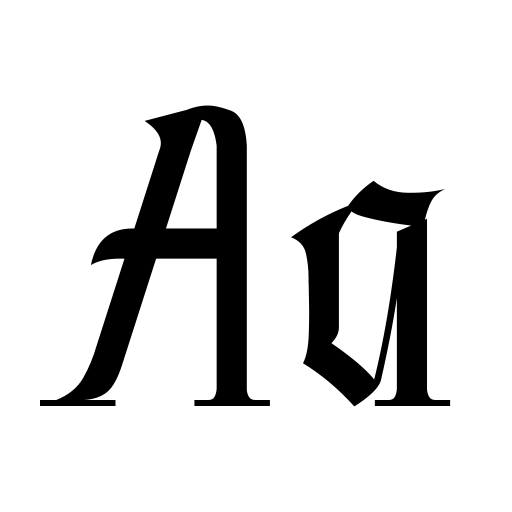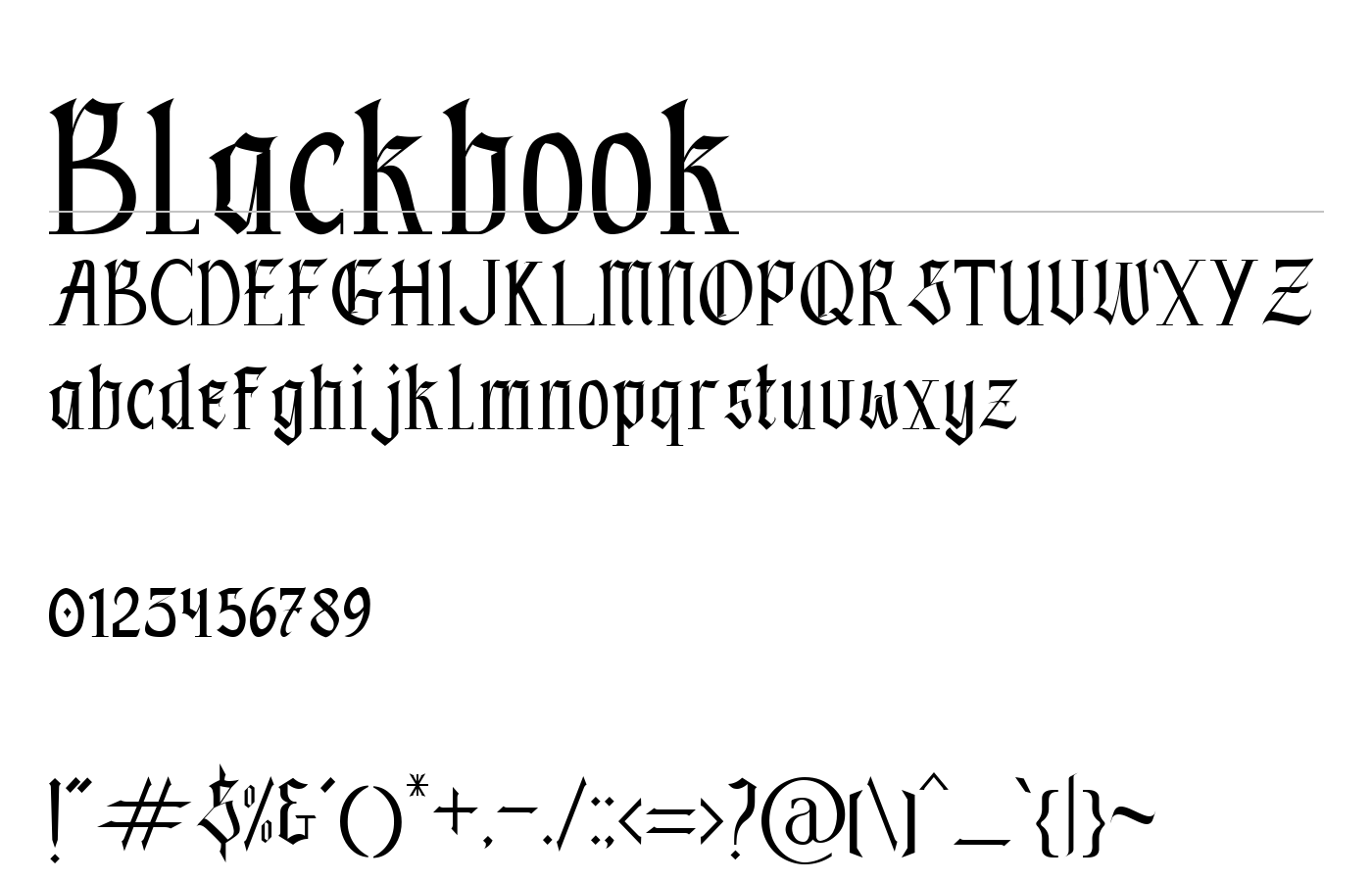
Blackbook Font is a striking blackletter typeface with strong, sharp strokes and high contrast, giving it a bold and historic feel. Its tall, narrow letterforms with pointed serifs and intricate details evoke a medieval, gothic atmosphere, making it perfect for projects that need a dramatic, vintage touch, such as logos, headlines, or editorial designs seeking an old-world charm. This font stands out with its unique character shapes and sharp edges, lending a serious yet artistic personality to any design.
Blackbook Font
About Blackbook Font